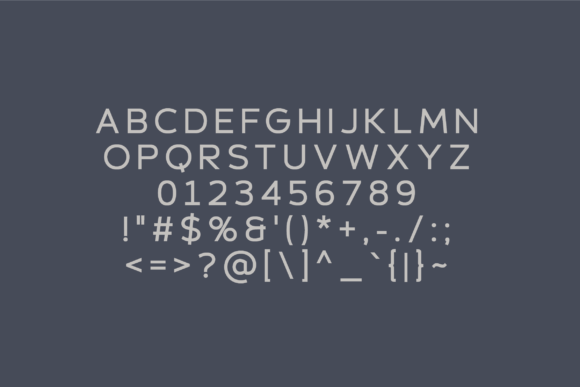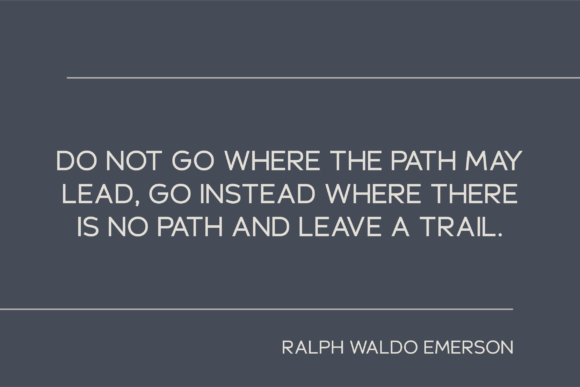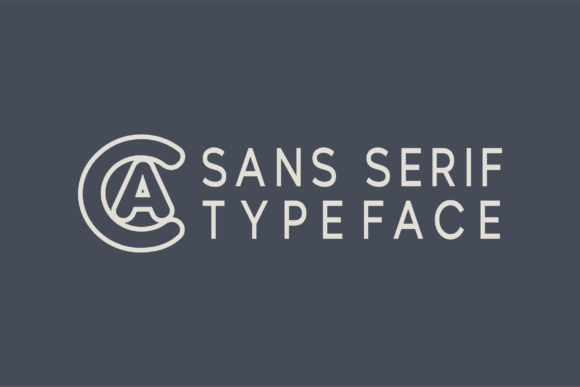
Welcome to the World of Blackstone: A Contemporary Marvel of Sans Serif Typography
Are you ready to elevate your designs with a touch of sophistication and elegance? Look no further than Blackstone, a stunning sans serif font that is taking the world of typography by storm. In this article, we’ll dive into the world of Blackstone and explore its unique features, versatility, and uses, making it a must-have for designers and crafters alike.
The Elegant Balance of Upper Characters
One of the standout features of Blackstone is its elegant balance of upper characters. Each letter is carefully crafted to exude a sense of sophistication and refinement, making it perfect for designs that require a touch of luxury. The clean lines, precise curves, and harmonious proportions of the upper characters come together to create a truly stunning visual experience.
Whether you’re designing a logo, wedding invitation, or magazine, the upper characters of Blackstone are sure to impress. Their elegant balance makes them highly legible, even at smaller font sizes, ensuring that your message is conveyed with clarity and style.
A Seamless Blend of Letters and Numbers
But Blackstone is more than just a pretty face – it’s also a highly functional font that offers a seamless blend of letters and numbers. The font includes a comprehensive set of numerals from zero to nine, carefully designed to match the style and sophistication of the upper characters.
This means that you can use Blackstone for a wide range of applications, from creating invoices and receipts to designing advertisements and promotional materials. The seamless blend of letters and numbers ensures that your text is always clear, concise, and visually appealing.
Punctuation and Symbols to Add that Extra Wow Factor
But what really sets Blackstone apart is its extensive range of punctuation and symbols. From basic punctuation marks to more complex symbols and glyphs, this font has everything you need to add that extra wow factor to your designs.
Whether you’re looking to add a touch of personality to your quotes, create eye-catching advertisements, or simply add some visual interest to your prints, Blackstone’s punctuation and symbols are sure to impress. With a wide range of options to choose from, you’re free to experiment and find the perfect combination to suit your design needs.
Versatility Across a Broad Spectrum of Use
One of the things that makes Blackstone so special is its incredible versatility. This font can be used across a broad spectrum of applications, from logos and branding to wedding invitations and magazine designs.
Here are just a few examples of how you can use Blackstone:
- Logos and Branding: Use Blackstone to create a sophisticated and elegant logo that reflects your brand’s values and personality.
- Wedding Invitations: Add a touch of luxury and refinement to your wedding invitations with Blackstone’s elegant upper characters and beautiful punctuation.
- Quotes and Advertisements: Use Blackstone to create eye-catching quotes and advertisements that grab attention and convey your message with style.
- Prints and Magazine Designs: Add a touch of sophistication to your prints and magazine designs with Blackstone’s clean lines, precise curves, and harmonious proportions.
Discover the Power of Sophistication with Blackstone
In conclusion, Blackstone is a truly exceptional font that offers a unique combination of elegance, sophistication, and versatility. Whether you’re a designer, crafter, or simply someone who appreciates beautiful typography, Blackstone is a must-have font that is sure to elevate your designs to the next level.
So why wait? Discover the power of sophistication with Blackstone and experience the difference for yourself. With its elegant balance of upper characters, seamless blend of letters and numbers, and extensive range of punctuation and symbols, Blackstone is the perfect choice for anyone looking to add a touch of luxury and refinement to their designs.